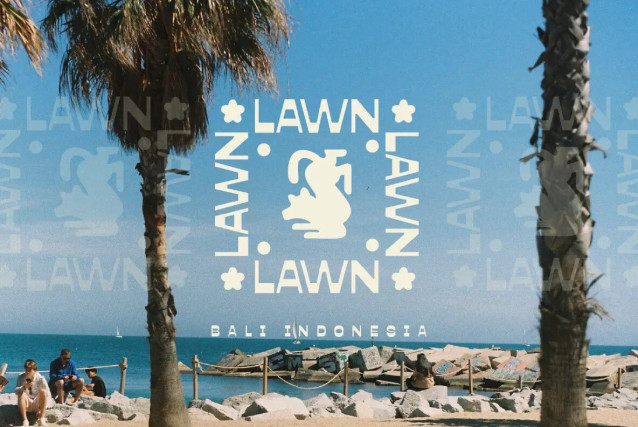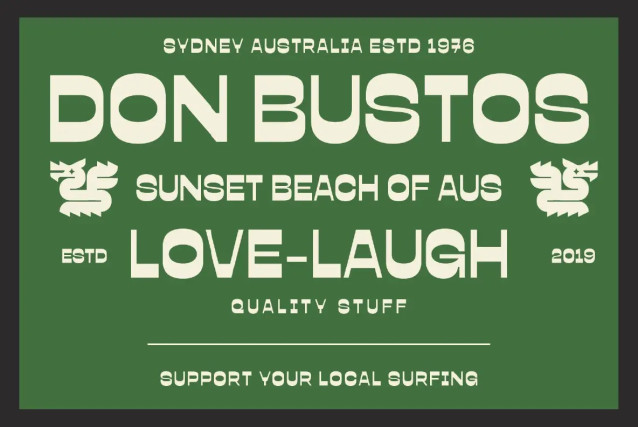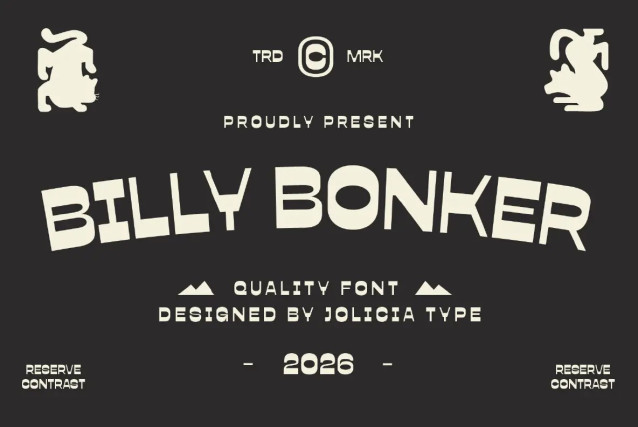
Billy Bonker — Retro Weight, Loud Voice
Billy Bonker is a bold reverse contrast sans serif font with the unmistakable spirit of vintage and retro typography. Its reversed stroke weight creates an eye-catching rhythm, while chunky letterforms and playful proportions give it a nostalgic character rooted in classic signage, old packaging, posters, and mid-century advertising.
Designed to stand out at large sizes, Billy Bonker pairs quirky personality with excellent readability. It is a strong choice for branding, logos, headlines, packaging, apparel, editorial layouts, posters, and social media graphics. Whether you are creating a retro-inspired identity or adding vintage flair to a modern design, Billy Bonker brings charm, confidence, and memorable visual presence to every project.